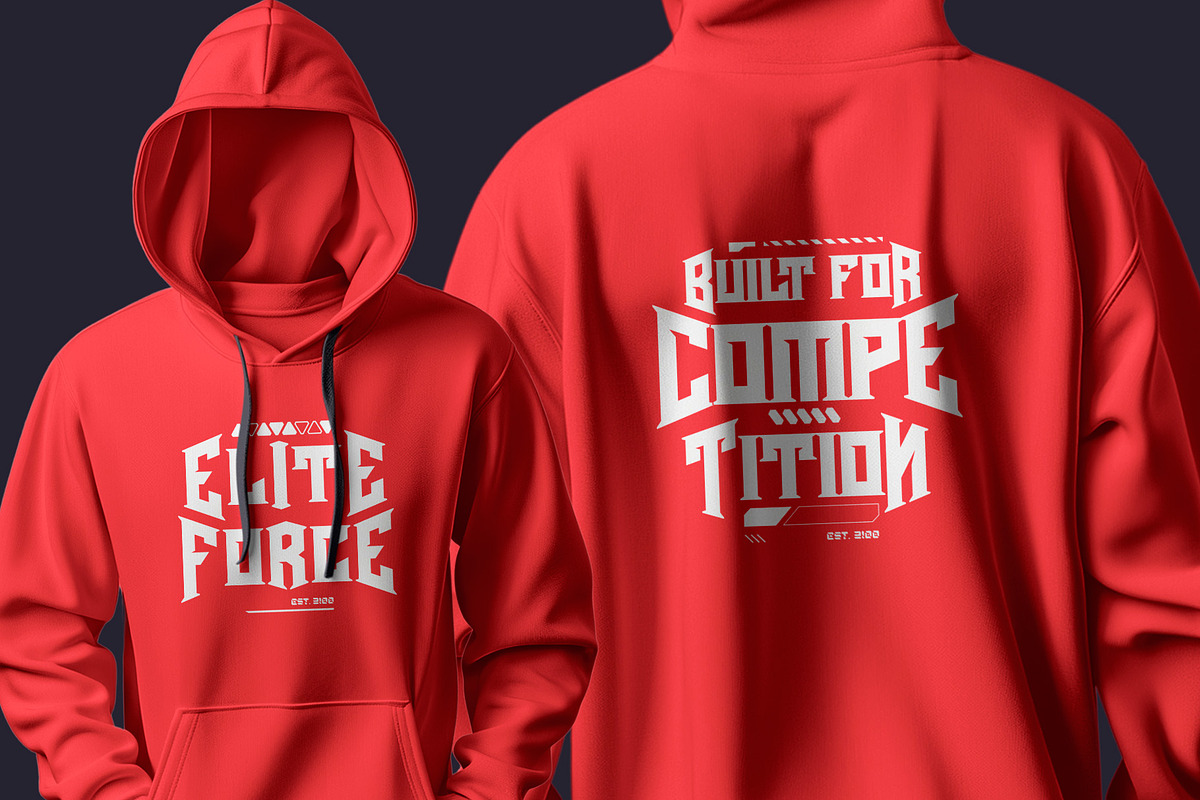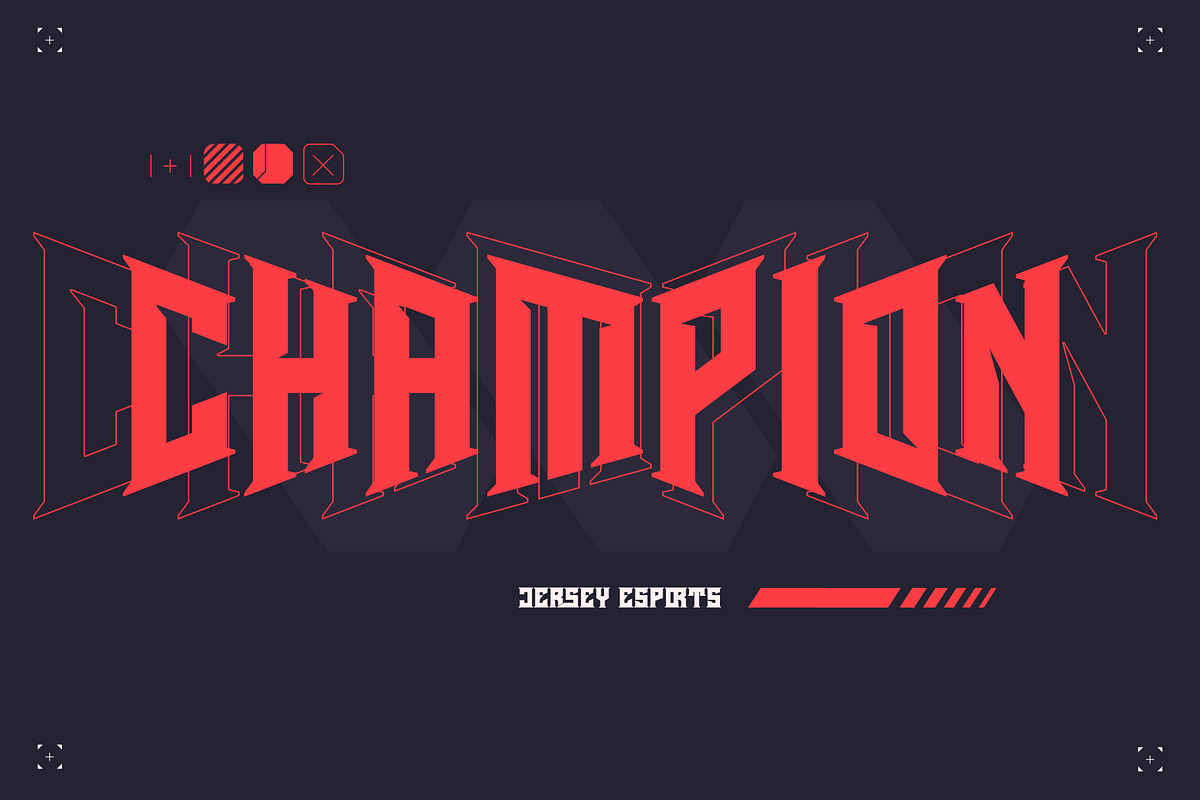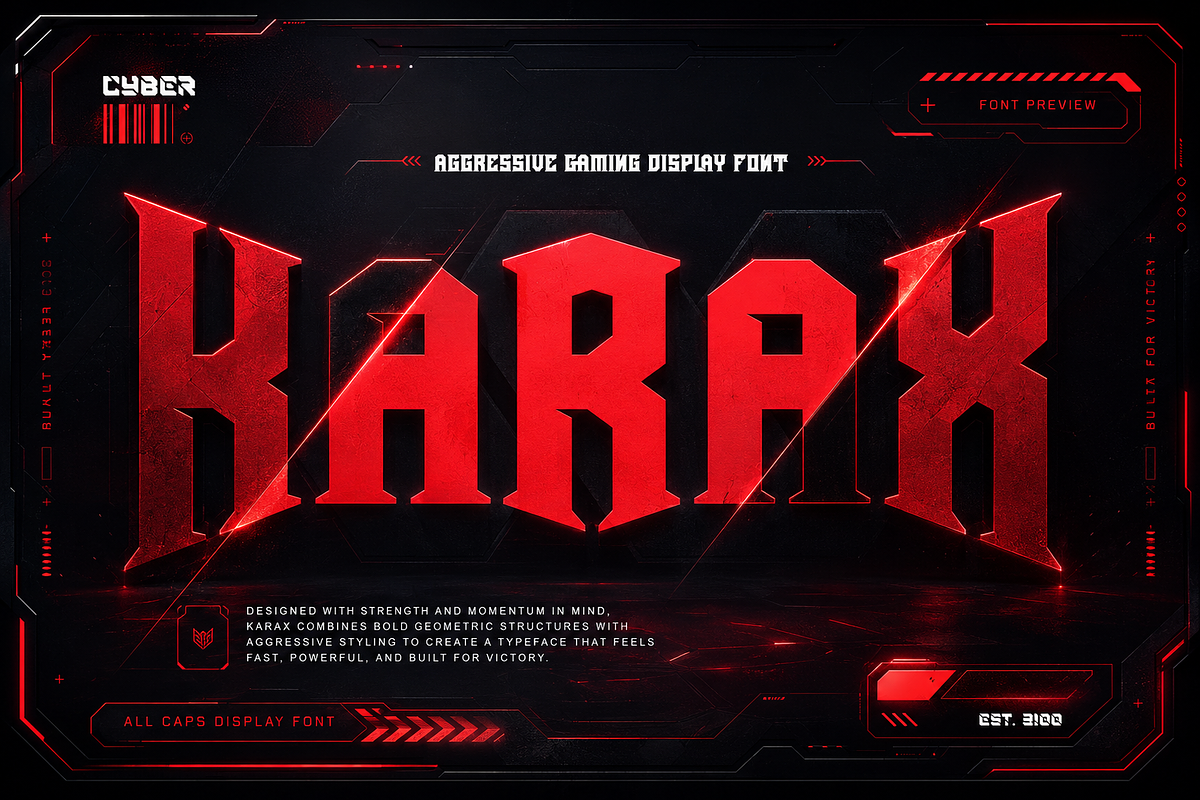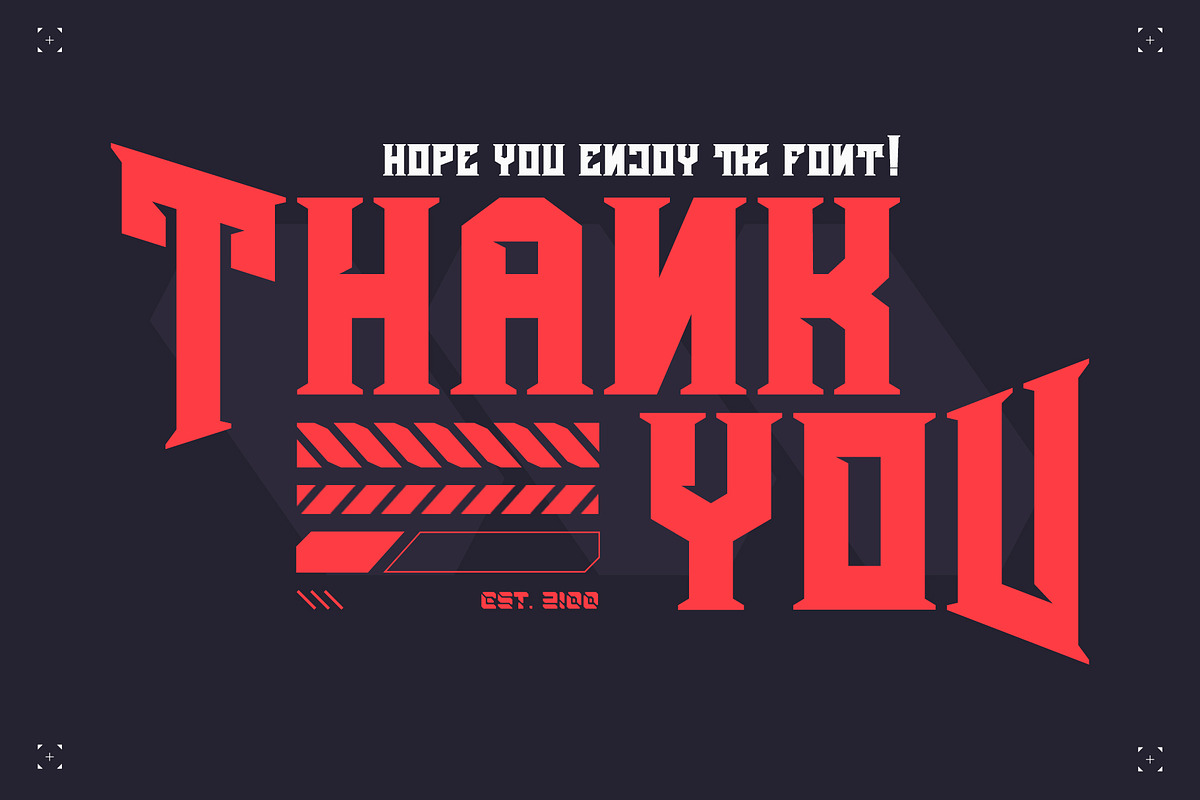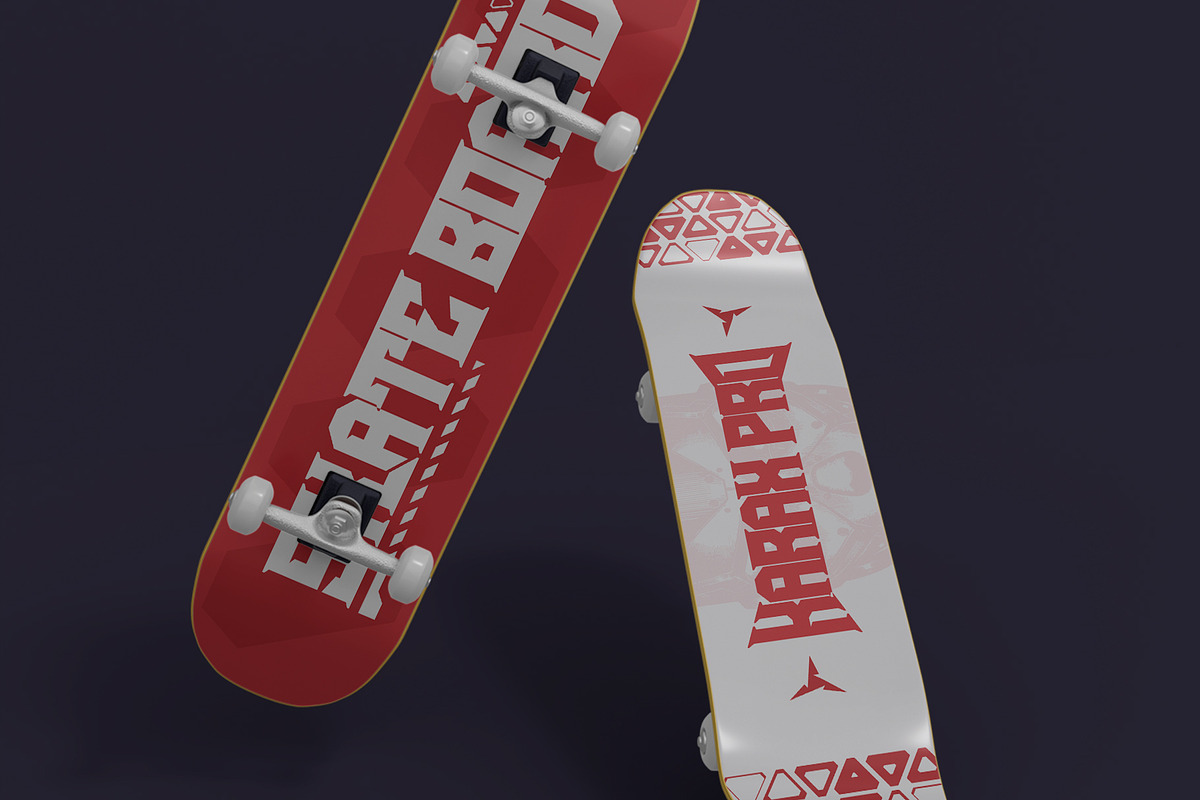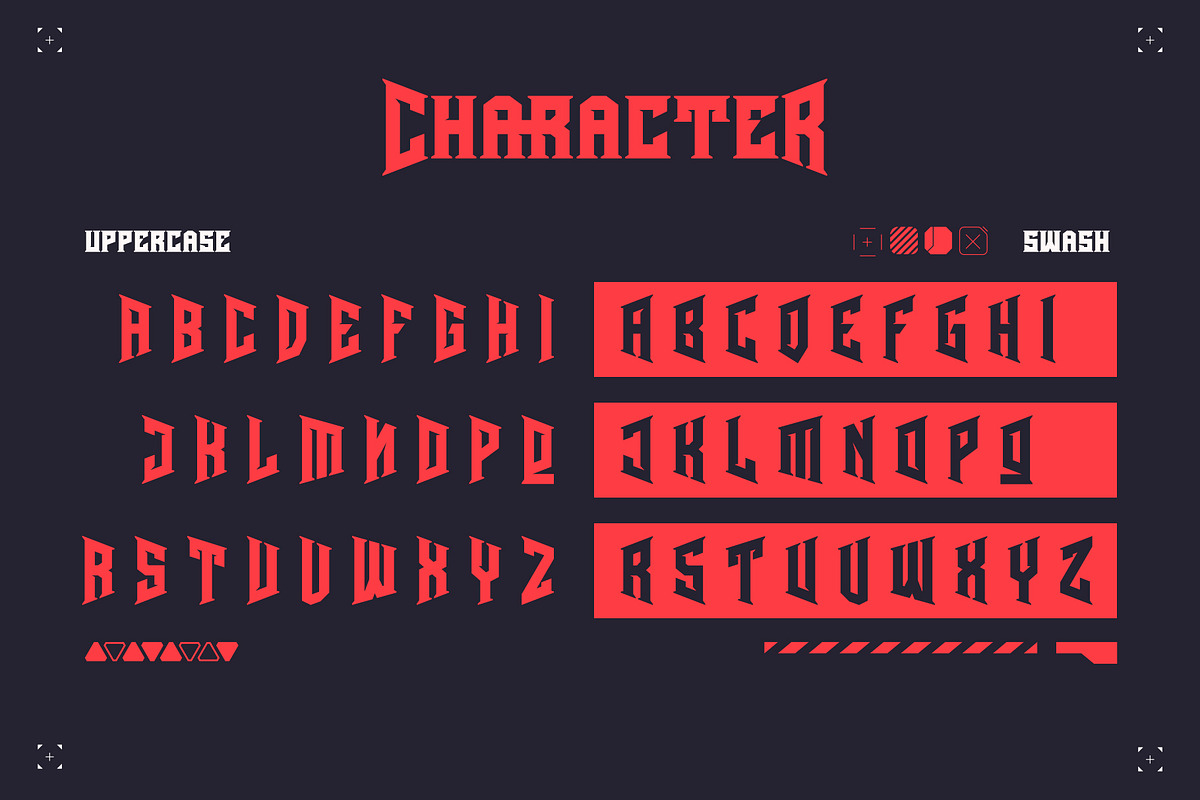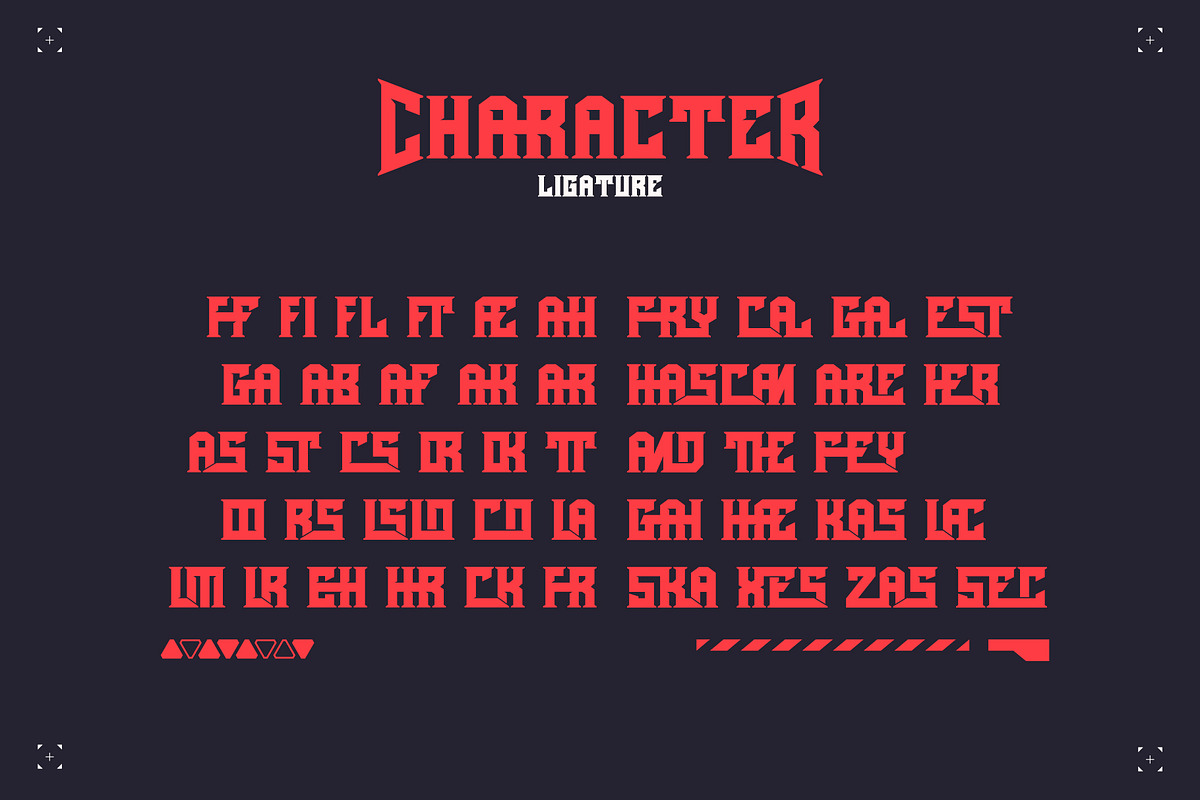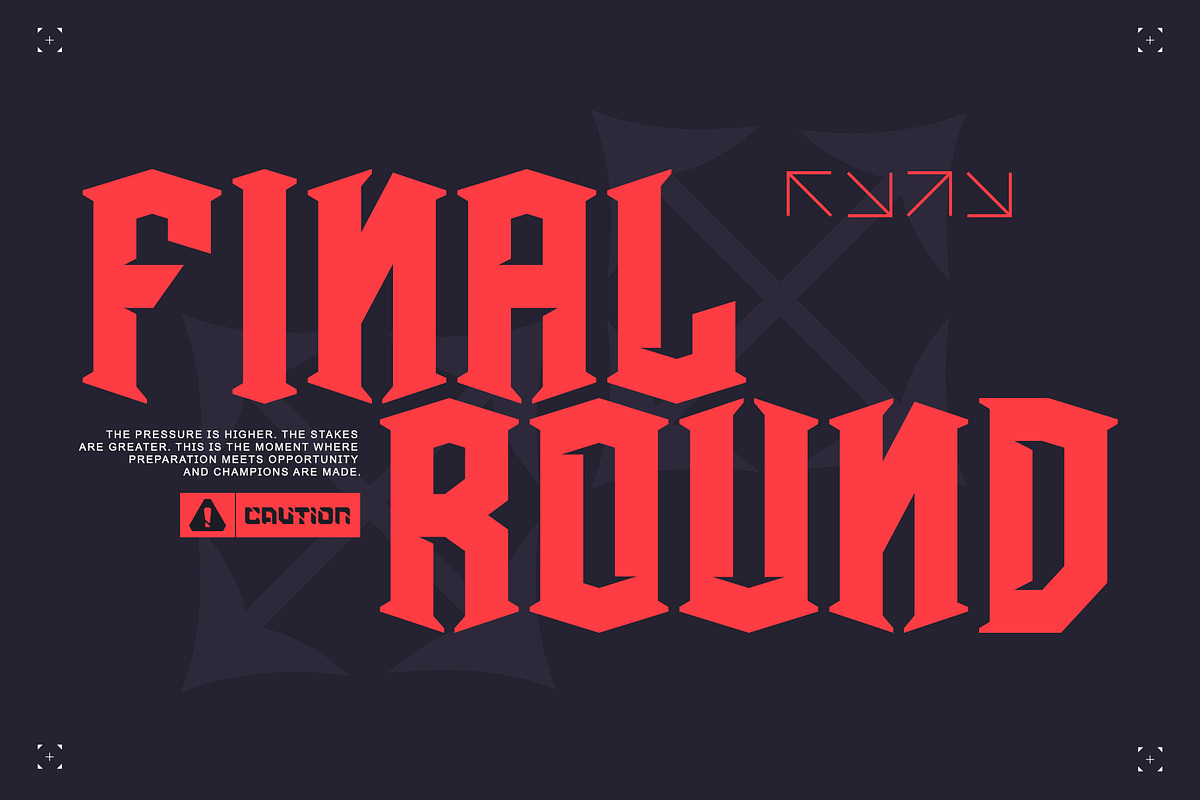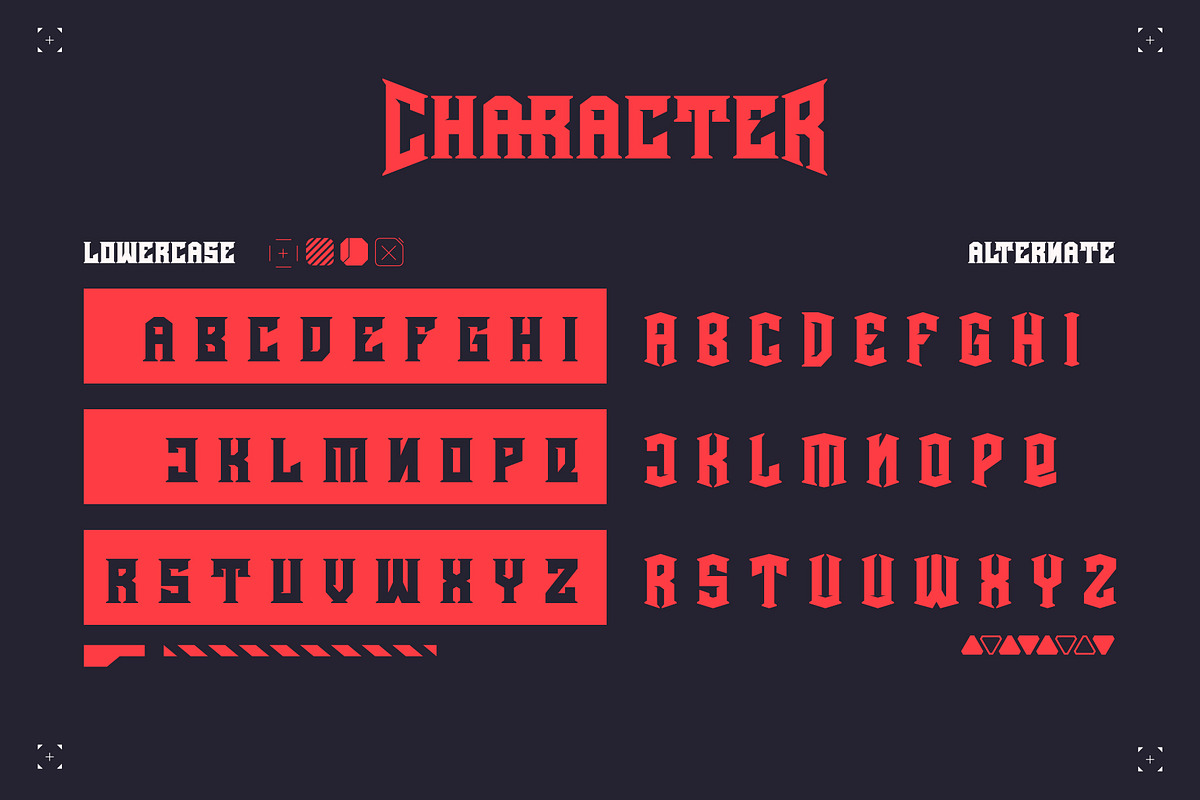
Harax – Esports Display Typeface
Harax is a bold and aggressive gaming display font designed to bring power, speed, and high-impact energy to your creative projects. Built with sharp geometric letterforms, strong proportions, and distinctive angular details, Harax delivers a competitive visual style that instantly commands attention.
Inspired by esports, gaming culture, cyber technology, extreme sports, streetwear, and futuristic branding, this powerful display typeface is perfect for projects that need a strong, modern, and fearless identity.
Support multilingual; ä ö ü Ä Ö Ü ß ¿ ¡
lowercase and uppercase letters
Alternate, swash & ligature